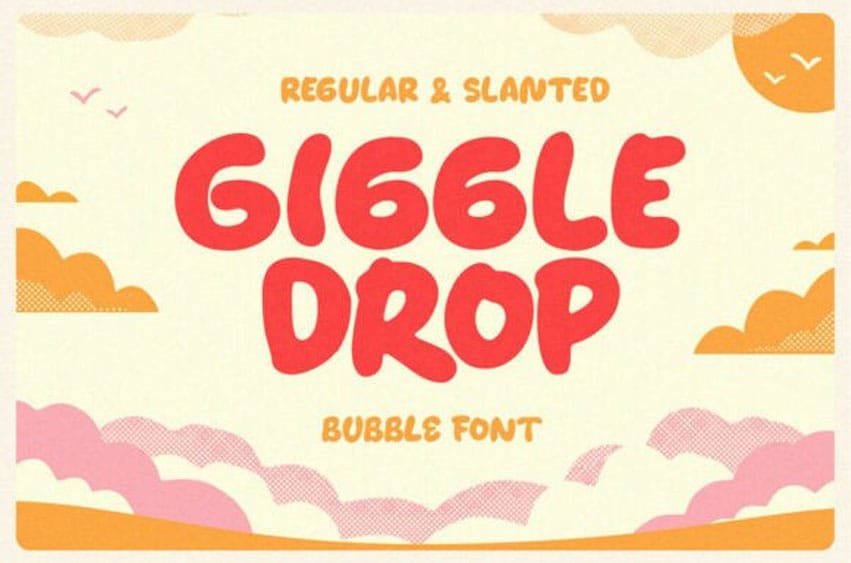
Giggle Drop Font Bubble Display Font. Giggle Drop is a fun, bubbly display font designed to spark joy and laughter.
Its rounded, plump letterforms are perfect for playful designs, kids’ products, toy packaging, comic titles, or party invitations. This font comes in regular and slanted styles, giving you flexibility in how you express your cheerful, vibrant ideas. With its retro, pop-inspired aesthetic and cartoon-like appeal, Giggle Drop is a fantastic choice for anyone looking to inject humor and personality into their work. Whether for branding or casual graphic design, Giggle Drop makes your message giggle-worthy.
The Giggle Drop display font is also PUA-encoded, ensuring effortless access to all glyphs, swashes, and alternate characters to help you customize your creations with ease.